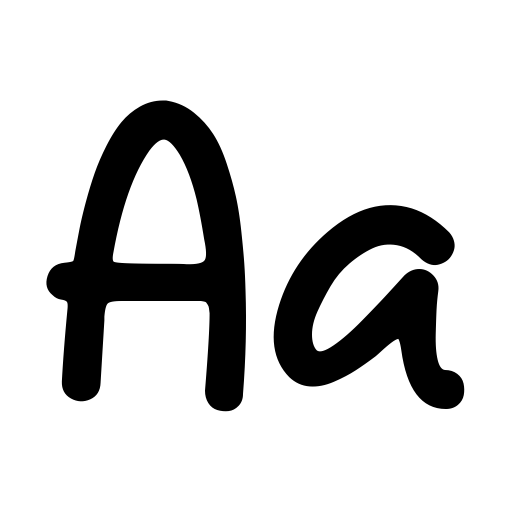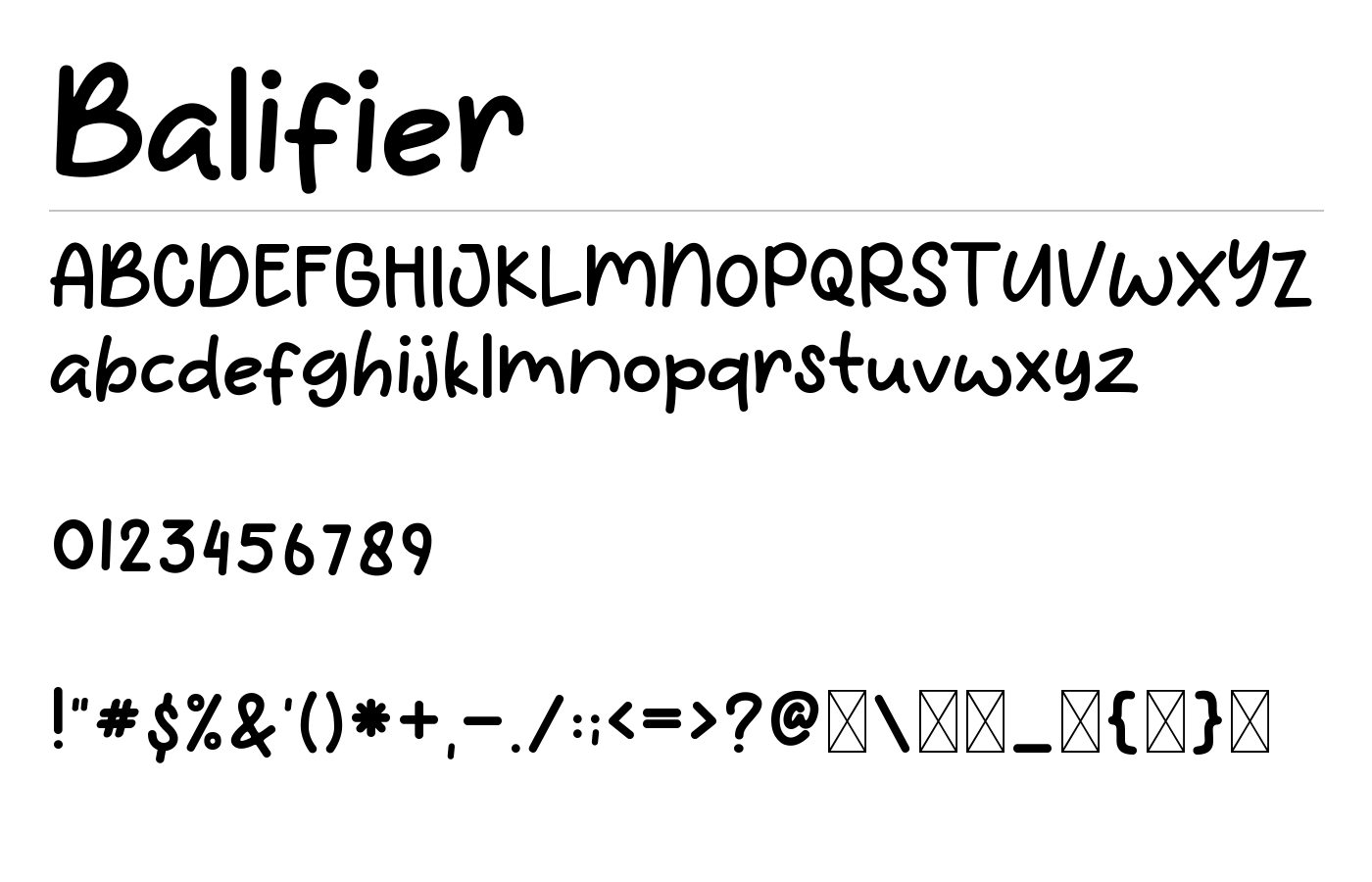
Balifier is a friendly and casual handwritten sans serif font with a playful, rounded style that feels approachable and warm. Its moderate weight, lively letterforms, and open spacing make it ideal for informal uses like children’s books, greeting cards, or fun branding that seeks to connect on a personal level. This font works well in headlines or short text where a cheerful, hand-drawn vibe is desired.
Balifier Font